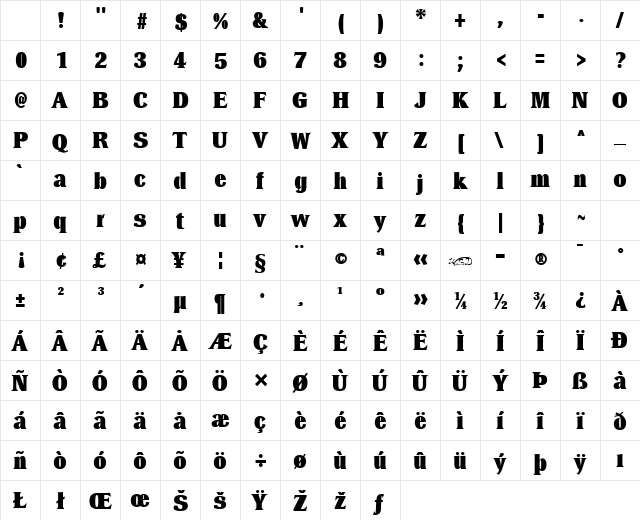
Dressel Black Regular
Dressel Black Family
Design Context for Dressel Black
Dressel Black is a composed and adaptable typeface that performs quietly and consistently across a wide range of design contexts.